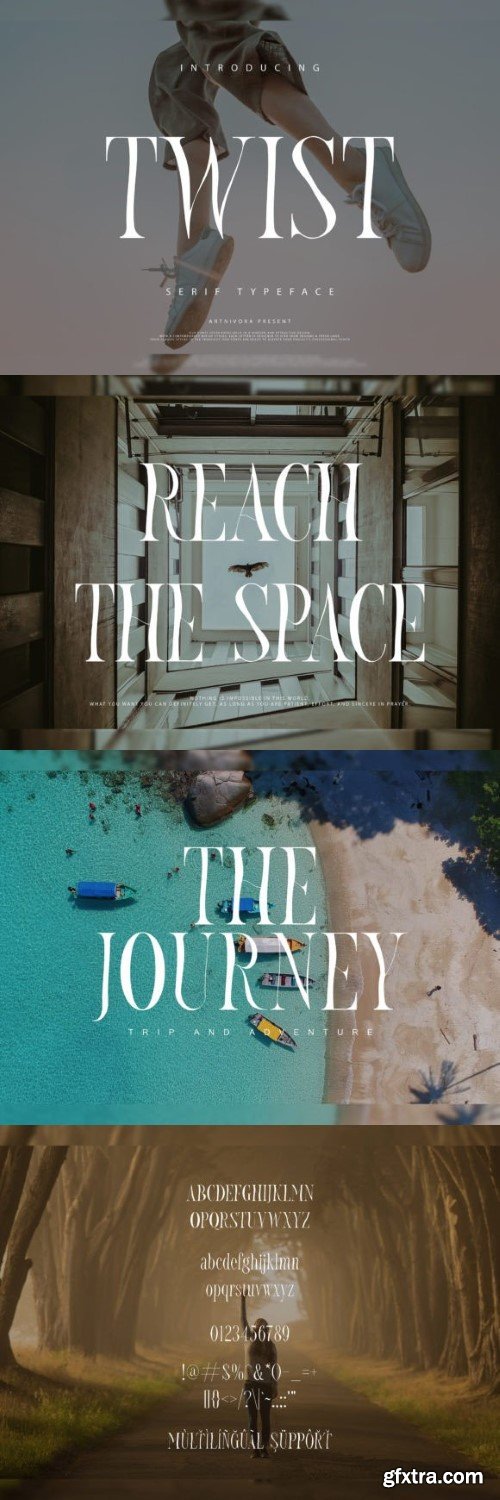
扭斜字体
Twist font is a mesmerizing typeface that adds a unique and artistic flair to your designs. With its captivating, fluid letterforms, Twist font adds a touch of intrigue and creativity to your projects. Whether you’re designing logos, posters, or headlines, Twist font will infuse your text with a captivating twist that grabs attention and sparks curiosity.